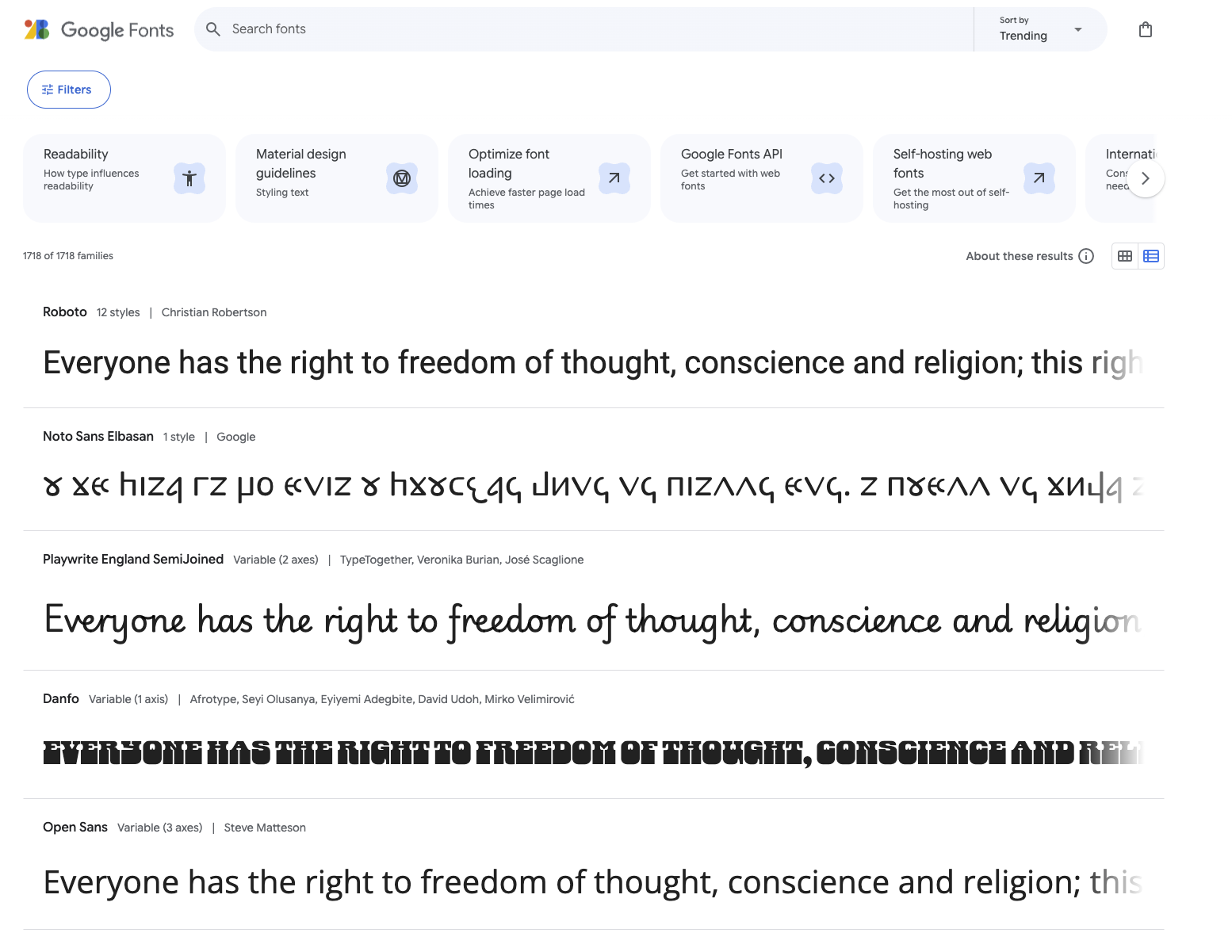
How Many Fonts Are in Google Fonts?
The collection of fonts in Google Fonts has grown considerably since its launch. As of now, Google Fonts hosts over 1,400 font families, covering a wide range of styles such as serif, sans-serif, script, display, and monospace. This extensive variety allows designers to find fonts that suit virtually any theme or purpose, from modern and minimalistic to traditional and decorative.